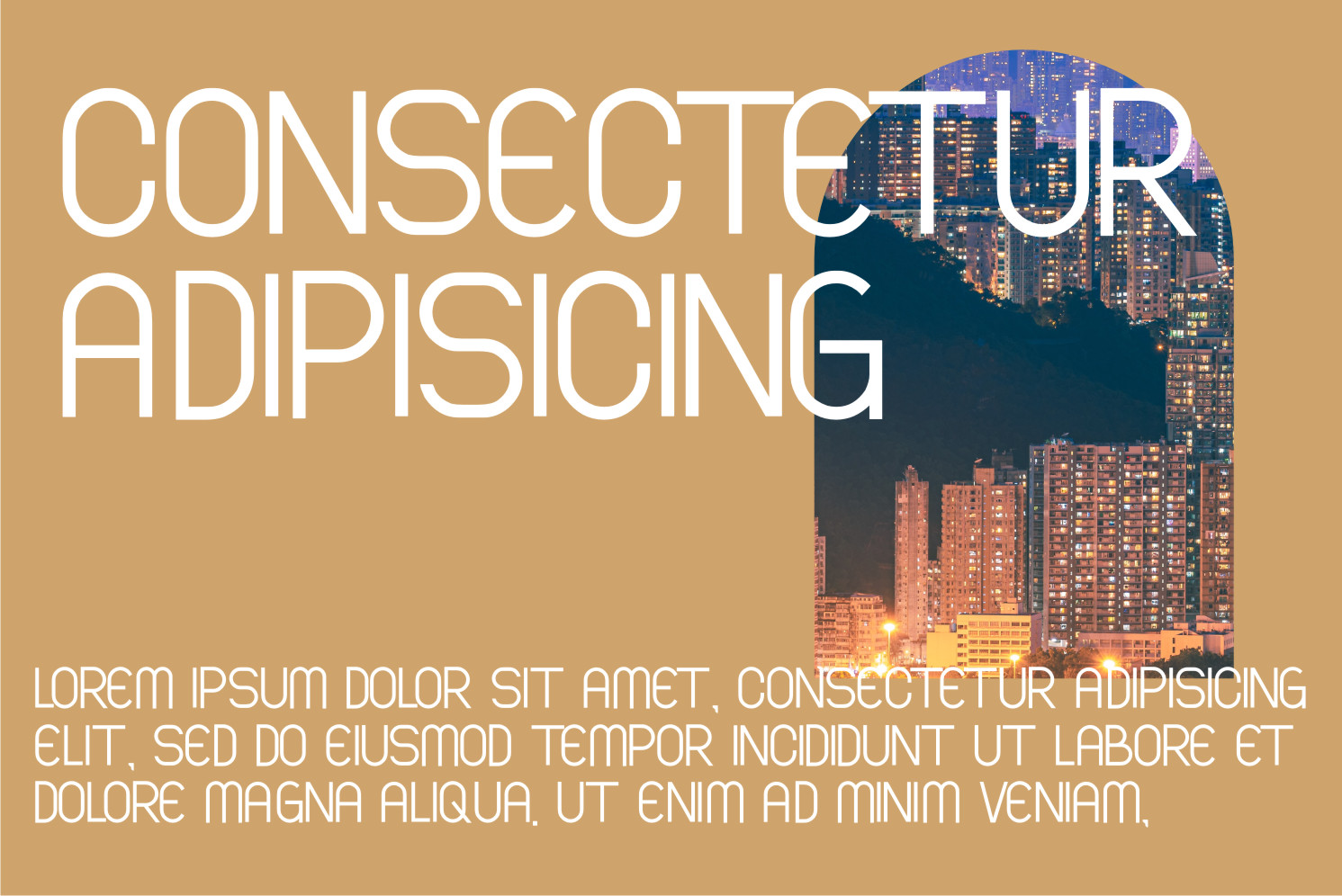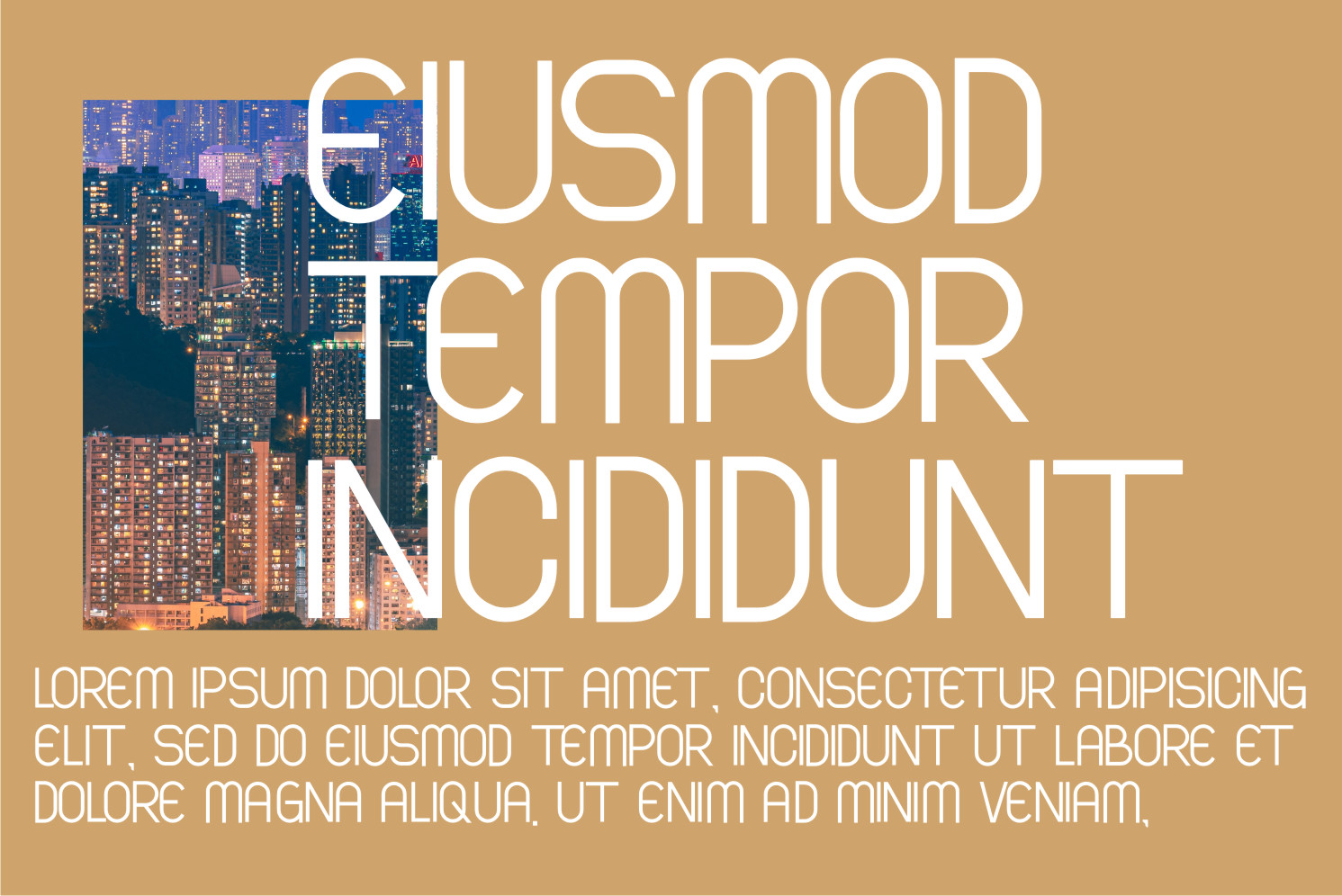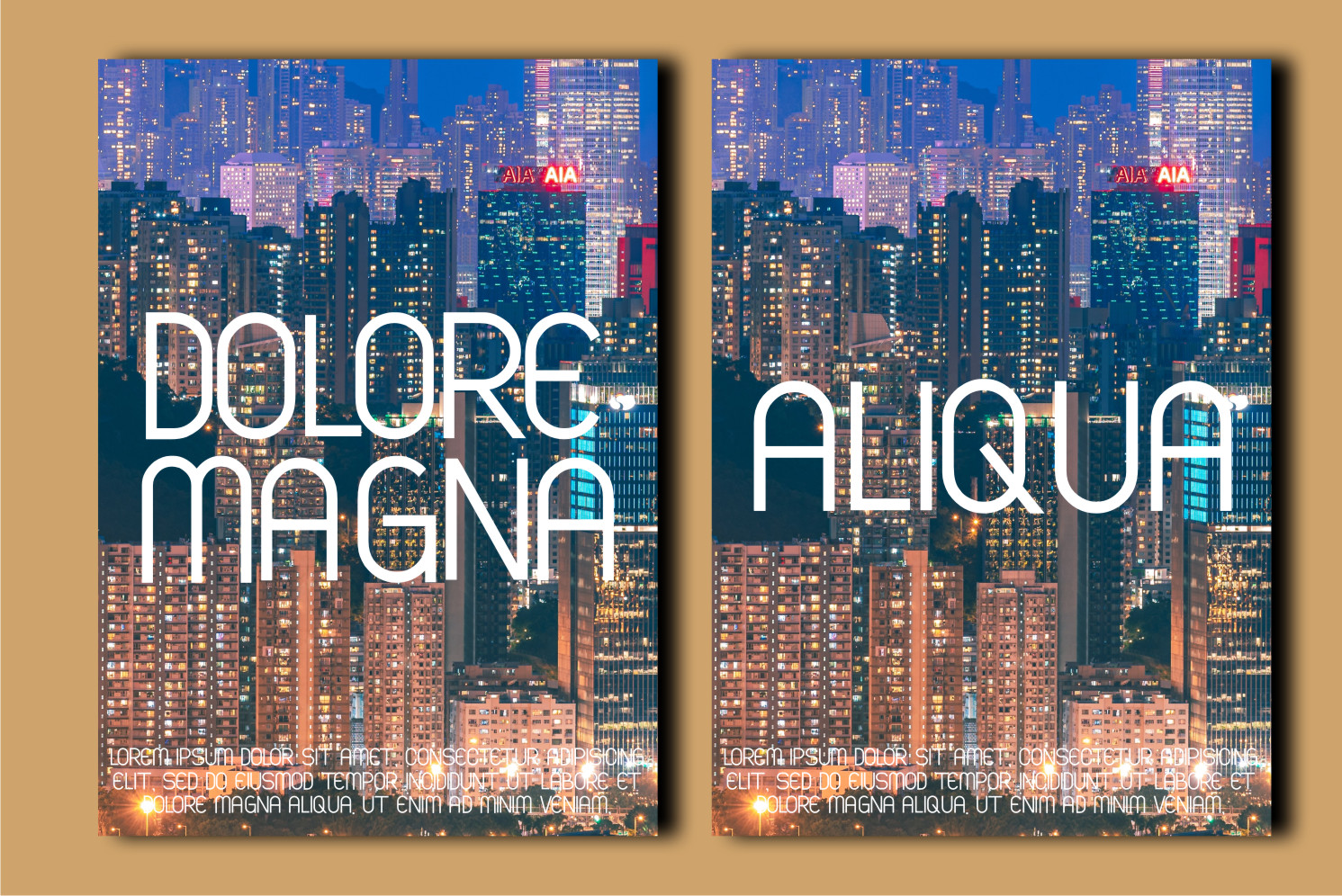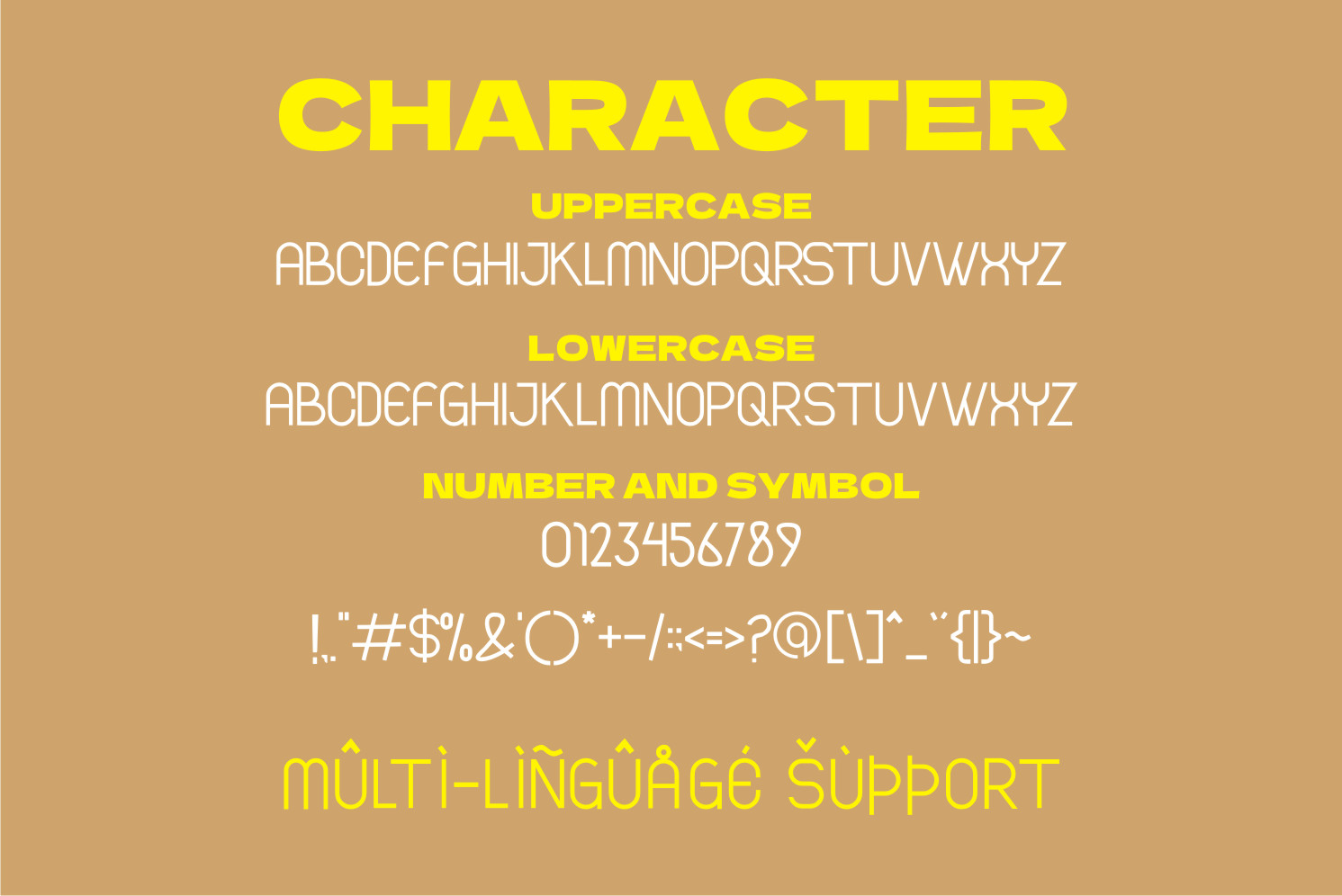
Xperage Display Font
It’s a modern and cool display font. This font is ideal for writing web designs, business cards, or pretty much anything else that requires a minimalist, clean touch.